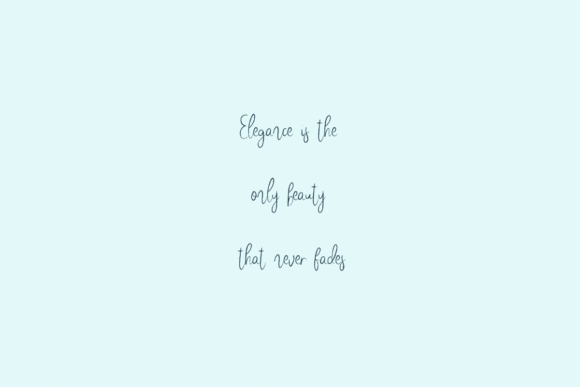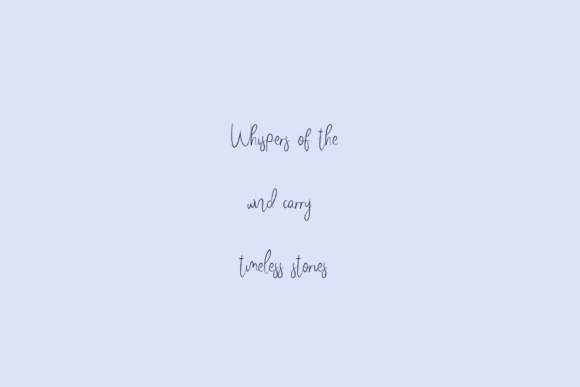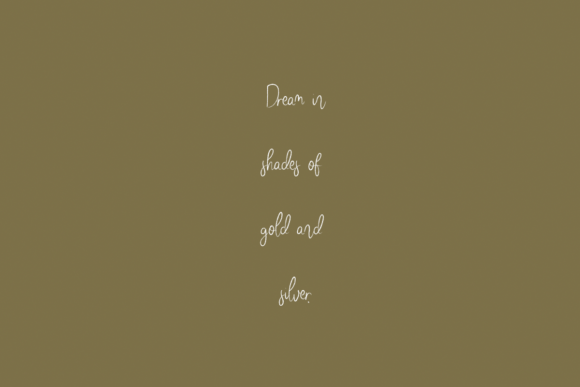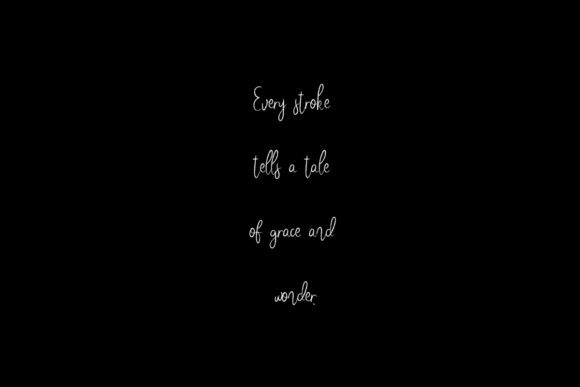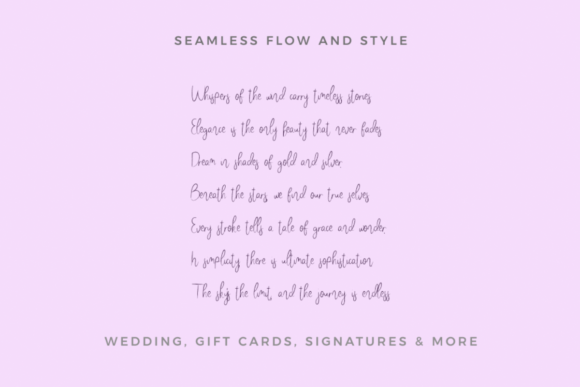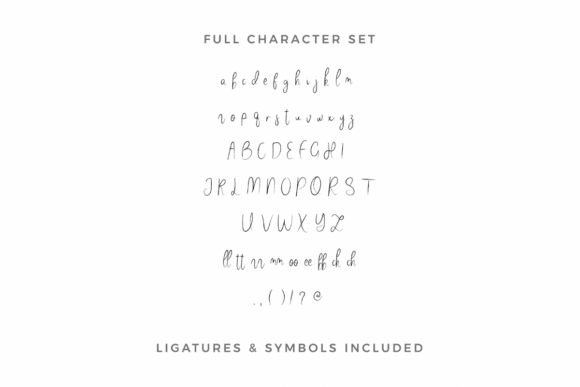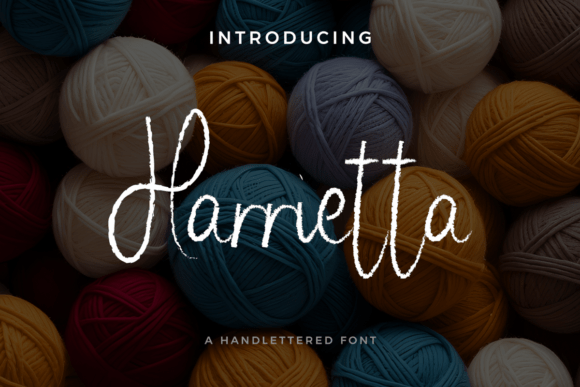
Discover the Elegance of Harrietta Font: A Unique Handwritten Script Font
Are you tired of using the same old fonts for your creative projects? Look no further than Harrietta, a captivatingly unique handwritten script font that is sure to elevate your designs to the next level. With its fluid design and elegant hand-lettering, Harrietta is the perfect choice for designers, crafters, and anyone looking for an authentic handwritten script font experience.
The Beauty of Hand-Lettering
Harrietta font is a masterful representation of hand-lettering, with each letter and stroke carefully crafted to convey a sense of elegance and sophistication. The font’s unique design is reminiscent of handwritten scripts, with a fluidity that makes it perfect for a variety of creative projects, from wedding invitations and branding materials to digital content and more.
A Modern Take on Timeless Design
What sets Harrietta apart from other script fonts is its ability to balance modernity with timelessness. While it has a distinctly contemporary feel, the font also nods to traditional hand-lettering techniques, making it a versatile choice for designers who want to create something both fresh and classic. Whether you’re looking to create a bold statement or a subtle impression, Harrietta font is up to the task.
Designed with Love
Harrietta font was designed with love and care, with a focus on creating a truly unique and special font that would inspire creativity and bring joy to users. The font’s creator poured their heart and soul into every detail, from the intricate lettering to the subtle nuances of the font’s design. The result is a font that feels personal, approachable, and authentic.
Harrietta font is a must-have for designers and crafters who want to add a touch of elegance and sophistication to their projects. Whether you’re working on a branding campaign, creating digital content, or crafting handmade cards and invitations, Harrietta is the perfect choice. The font’s versatility and flexibility make it easy to use in a variety of contexts, from formal events to casual gatherings.
Key Features of Harrietta Font
- Unique Handwritten Script Design: Harrietta font features a one-of-a-kind handwritten script design that is both elegant and fluid.
- Fluid Design: The font’s fluid design makes it perfect for creating flowing, organic-looking text that is easy on the eye.
- Timeless yet Modern: Harrietta font balances modernity with timelessness, making it a versatile choice for a variety of creative projects.
- Designed with Love: The font was designed with care and attention to detail, making it feel personal and authentic.
- Perfect for Designers and Crafters: Harrietta font is a must-have for designers and crafters who want to add a touch of elegance and sophistication to their projects.
Harrietta font is a truly unique and special font that is sure to elevate your designs to the next level. With its elegant hand-lettering, fluid design, and timeless yet modern aesthetic, Harrietta is the perfect choice for designers, crafters, and anyone looking for an authentic handwritten script font experience. So why wait? Download Harrietta font today and discover the beauty of hand-lettering for yourself!